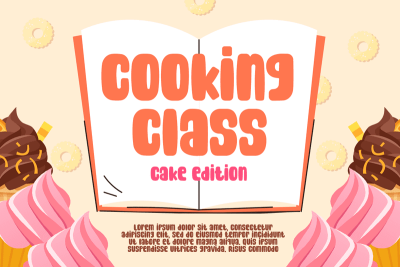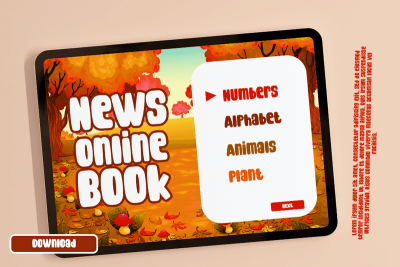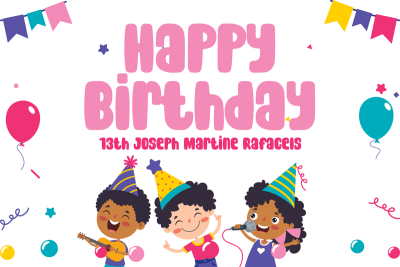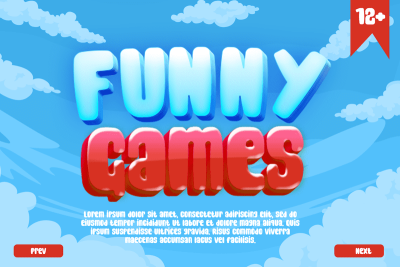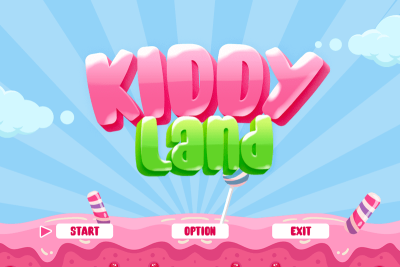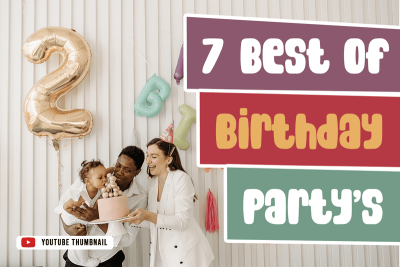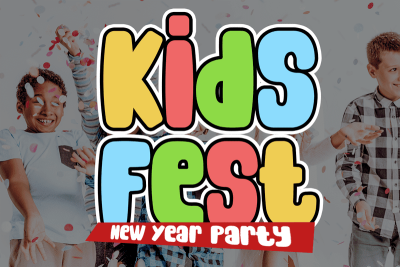
Cute Font Munchkin Cream brings a fun, delightful aesthetic to any project. Its bold, rounded characters and soft, whimsical touch capture childhood’s joyful essence. Additionally, Munchkin Cream evokes warmth and happiness, perfect for projects aiming to connect emotionally. Each letter has a thick, smooth outline, which enhances its friendly appearance and ensures readability. The chunky, rounded shape gives Munchkin Cream a unique, soft look, ideal for creating an approachable vibe.
This fontโs creamy, inviting style suits designs aimed at children and family audiences. The bold strokes guarantee clarity, even in smaller sizes. Plus, the gentle curves add a playful feel that works well across media. This font combines readability with charm, making it a cheerful, child-friendly choice. Its structure and playful style fit both digital and print use.
For designers seeking sweetness and charm, Munchkin Cream is a perfect choice. It works well in headlines, logos, and packaging, adding a playful, engaging vibe. Its whimsical feel aligns with themes of childhood joy, creating a warm, inviting atmosphere. Overall, Cute Font Munchkin Cream is a high-quality font that blends readability with lively, joyful energy.
Cute Font Munchkin Creamย Market Applications
Cute Font Munchkin Cream is ideal for markets targeting children, families, and food products. For example, it adds charm to childrenโs book titles, enhancing the reading experience. Storybooks, coloring books, and educational materials benefit from its fun, engaging look. Teachers, publishers, and childrenโs content creators can make materials more appealing to young readers.
This font also suits family-oriented product branding, especially for childrenโs food or toys. Itโs a great choice for brands wanting a warm, friendly image. Companies can use it in logos, packaging, and promotional materials, particularly for snacks, toys, and kidsโ apparel. Munchkin Creamโs bold, playful design captures attention, making it perfect for kid-friendly markets.
Craft creators on platforms like Etsy can also benefit from Munchkin Cream. Itโs ideal for personalized stickers, labels, and DIY projects for kids and parents. Busy parents who make handmade items or planners can add a custom, playful touch with this font that resonates with all ages.
In digital design, Cute Font Munchkin Cream shines in social media graphics, website headers, and ads. Social media managers and content creators targeting families can add a playful vibe to posts, especially for kidsโ events or products. This fun style enhances digital content, making it more engaging.
In summary, Cute Font Munchkin Cream is versatile and charming, suited for designs targeting kids and families. Its readability and charm fit many projects, from childrenโs books to packaging, social media, and decor. Thus, Munchkin Cream adds sweetness and cheer to any family-oriented design.